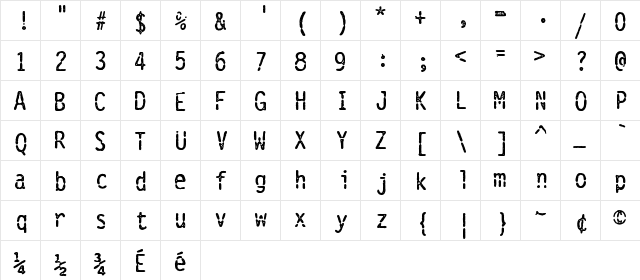
Vanthian Ragnarok Regular Font Preview
Vanthian Ragnarok Regular
Vanthian Ragnarok Regular Font Details
| Designer | S. John Ross |
Design Context for Vanthian Ragnarok Typeface
Vanthian Ragnarok takes a measured approach to typography — its balanced proportions and neutral character make it a reliable workhorse for both digital and print work.